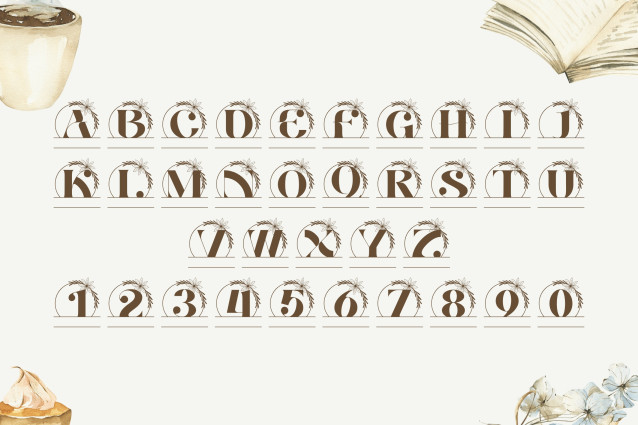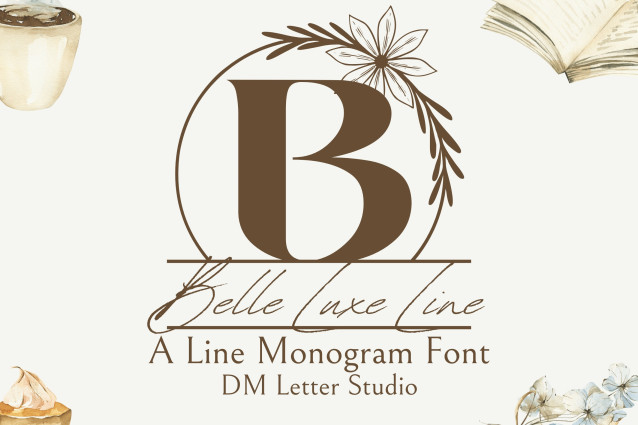
Belle Luxe Line Monogram Font
Belle Luxe Line Monogram Font is a refined and minimalist monogram font that combines the elegance of classic serif letterforms with the clean sophistication of outline styling. Each uppercase letter is thoughtfully designed to deliver a luxury feel with subtlety and modern flair. Ideal for premium branding, high-end packaging, custom initials, and chic wedding designs.